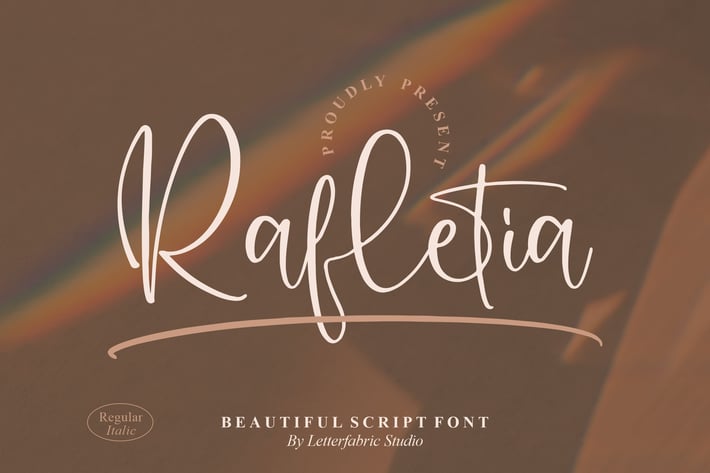
Rafletia Script Font
Rafletia Script Font is a beautifully designed handwritten script that blends elegance with a warm, personal touch. Its graceful curves and fluid strokes make it a versatile typeface perfect for projects that demand both sophistication and charm. Whether you’re creating branding, wedding invitations, or social media graphics, Rafletia brings a timeless handwritten style that elevates your designs effortlessly.
+ Elegant and smooth handwritten style
+ Available in Regular & Italic
+ Multilingual support
+ Perfect balance of readability and artistry
+ Wedding invitations & stationery
+ Branding & logo design
+ Social media graphics
+ Greeting cards & quotes
+ Editorial design & packaging
Add timeless elegance to your designs with the flowing beauty of Rafletia Script Font – where sophistication meets creativity.